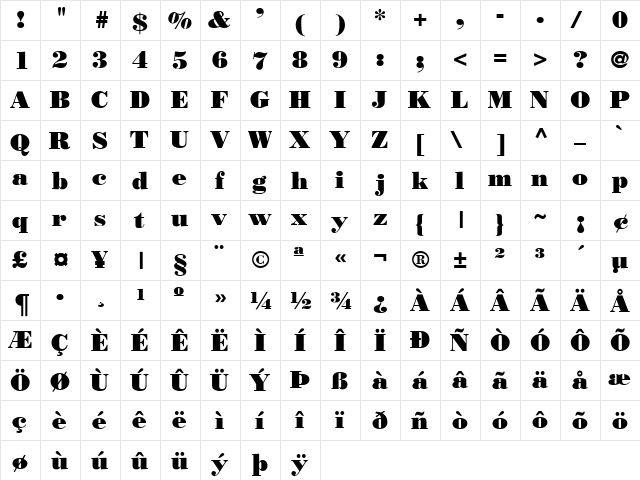
Bodnoff Regular
Design Context for Bodnoff Typeface
Bodnoff offers clean, dependable letterforms without strong stylistic allegiance, making it a practical choice for designers who need flexibility.
Pro Tip: Use Bodnoff in both headline and body roles to test its range before committing to a single application.